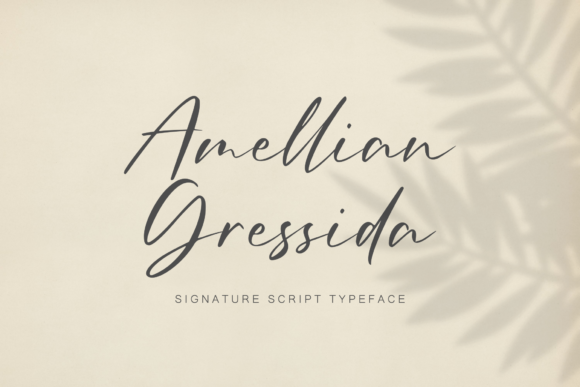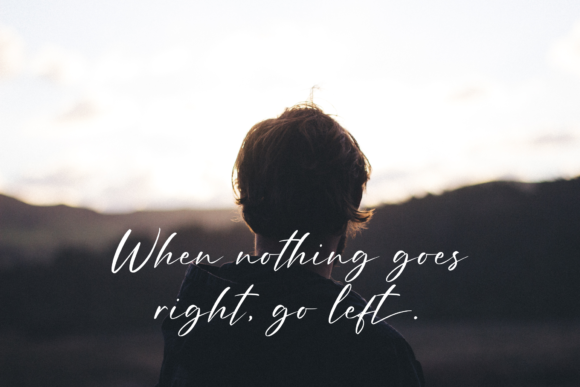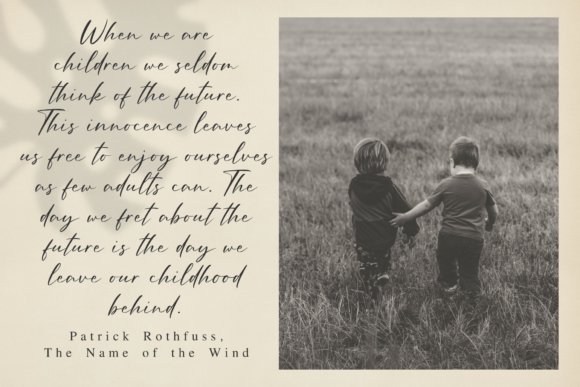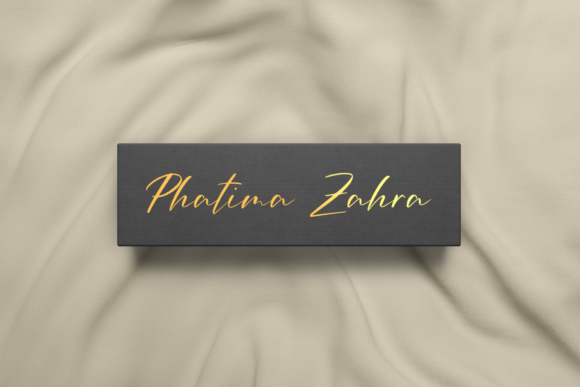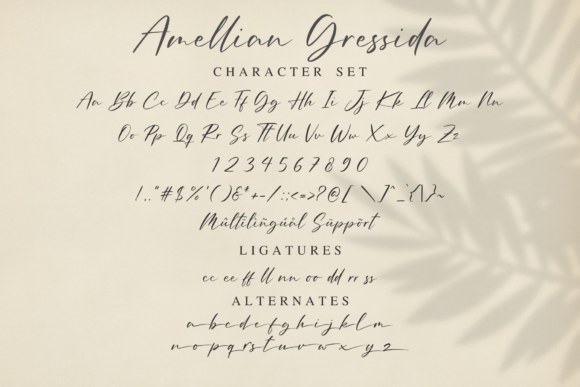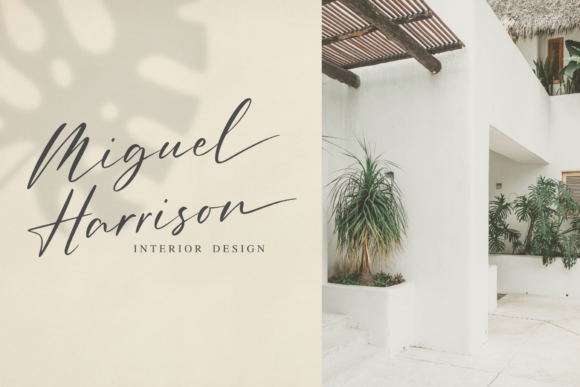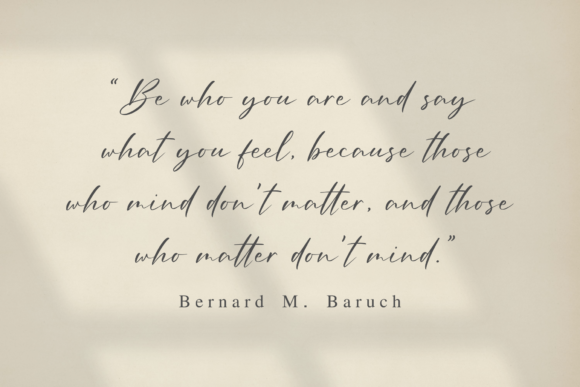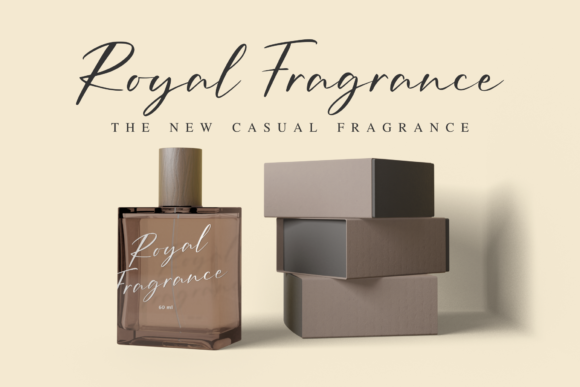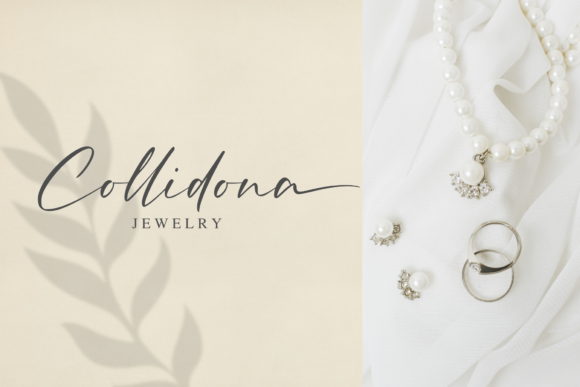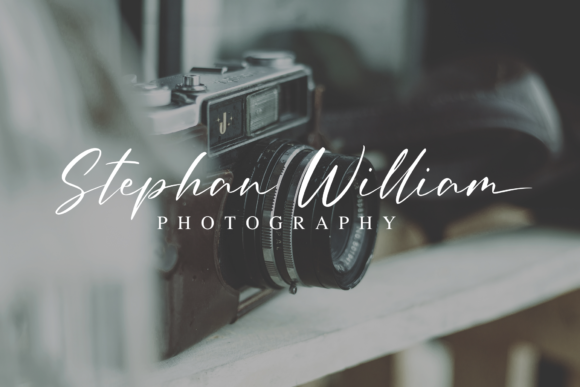
Amellian Gressida Font
About Amellian Gressida Font
Amellian Gressida is a modern signature typeface with gorgeously crafted letters. This beautiful font will take any design idea to the next level.